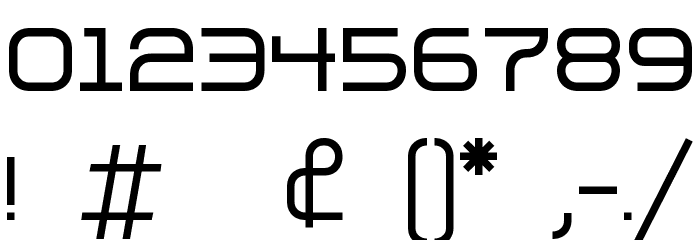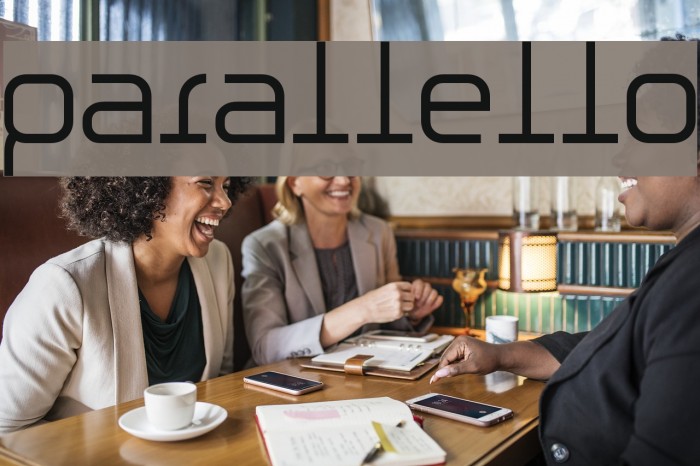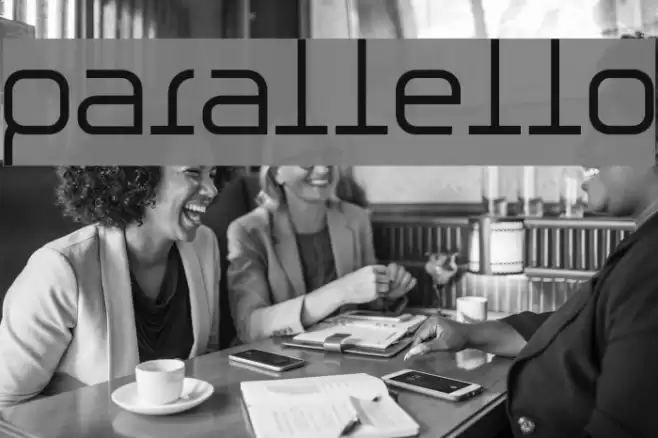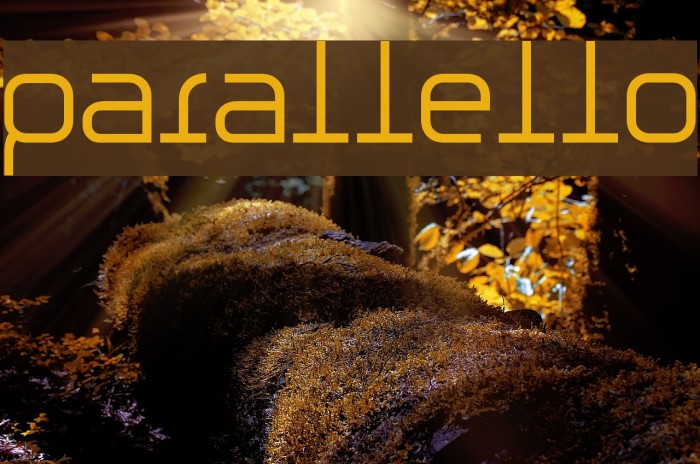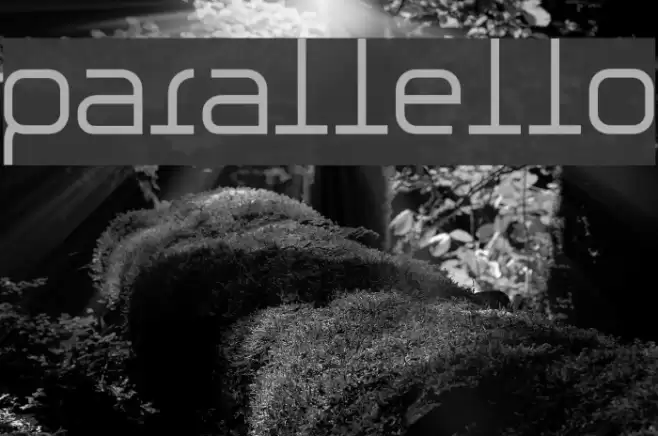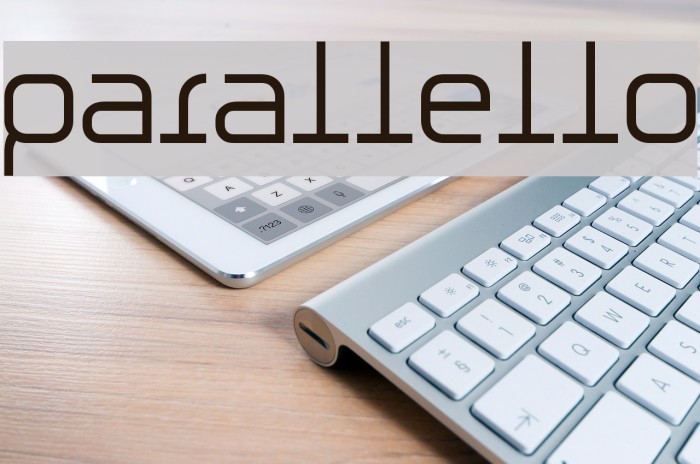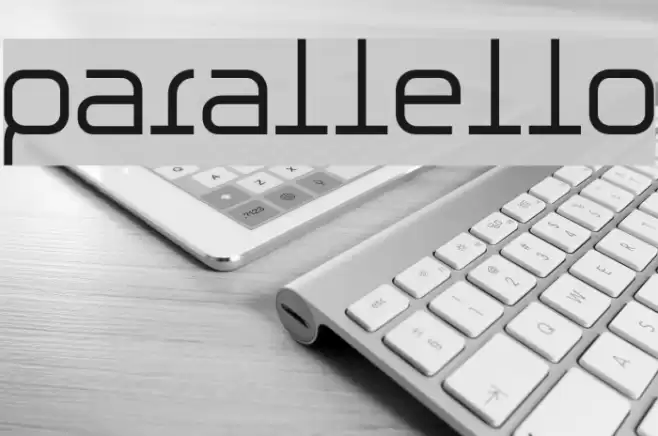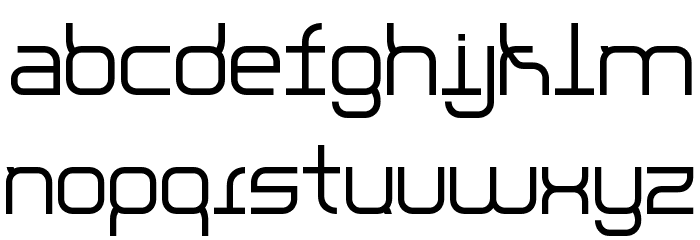
Parallello Font
Parallello Description
This font features a modern, geometric design with a distinct parallel line motif running through each character. The letters are constructed with clean, straight lines and rounded corners, giving it a futuristic and technical appearance. The uniformity in stroke width across all characters provides a cohesive look, while the open counters and spacious design enhance readability. The numerals and special characters maintain the same stylistic approach, ensuring consistency throughout. Its unique style makes it suitable for projects that require a contemporary and innovative touch.
| Use Case | Logos, Headlines, Digital interfaces |
| Proposed Projects | Ideal for technology branding, modern art projects, futuristic designs, and digital interfaces. |